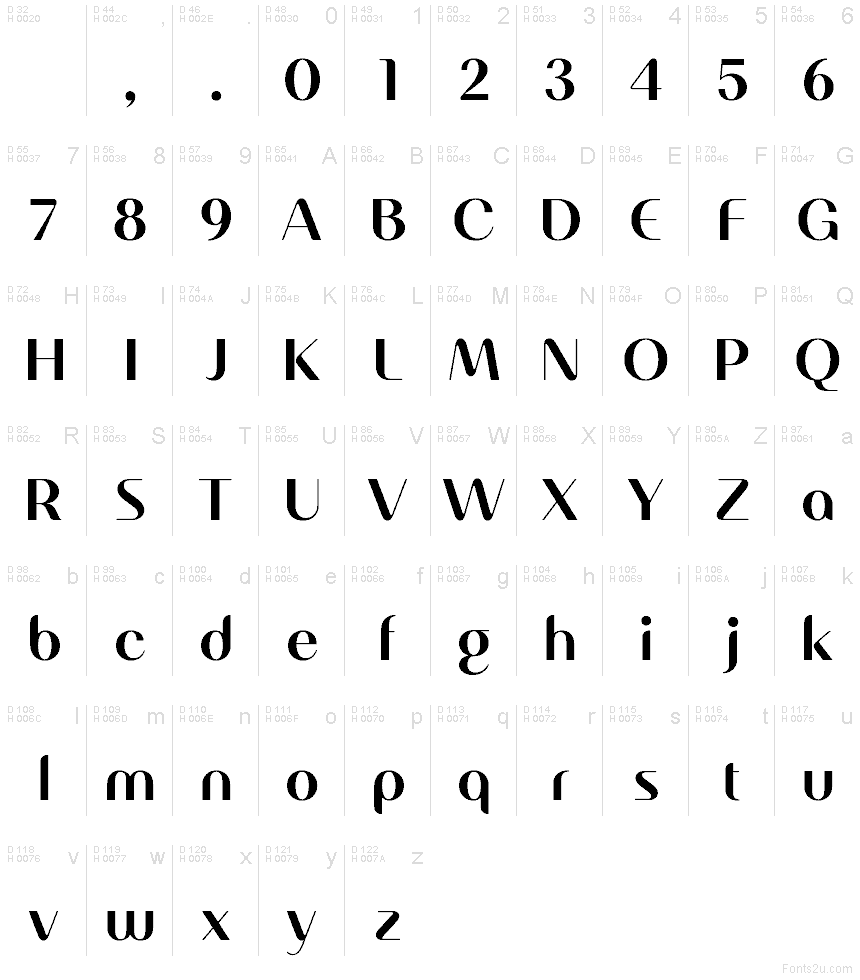
Nearo Semi Bold font by Digitype Studio is a free modern sans typeface with a striking twist: sculpted curves that swell into inky heft, then taper to hair-fine cuts. The Nearo family’s Semi Bold weight carries a chic, Art Deco hush-sleek arcs, tight rhythm, and generous counters that let headlines breathe while staying unmistakable on the page.
Using Nearo Semi Bold, you’ll get confident wordmarks, fashion branding, editorial headers, posters, packaging, and social graphics that feel tailored and upscale. Its measured spacing and crisp shapes hold up at big sizes without shouting. For balance, pair this free font with Nearo Regular for body copy or a quiet grotesk at smaller sizes.
Nearo presents five font styles that embody a modern and high-contrast aesthetic, crafting a distinctive and engaging impression.